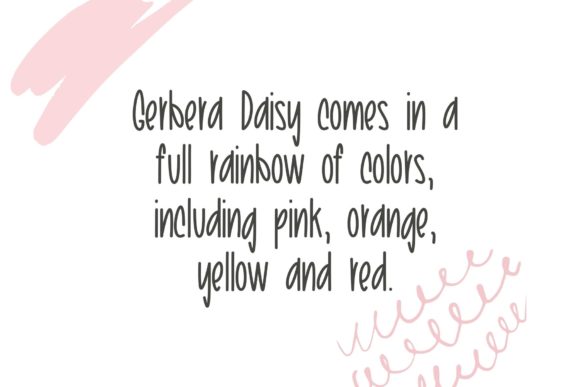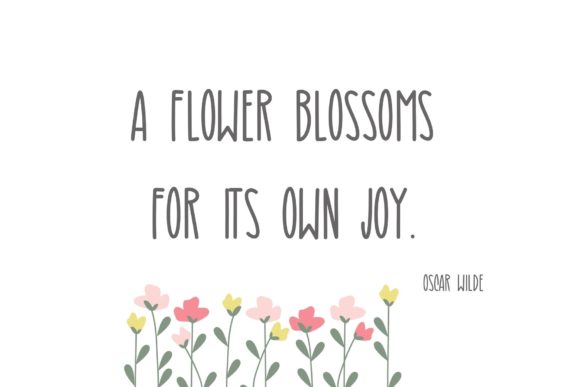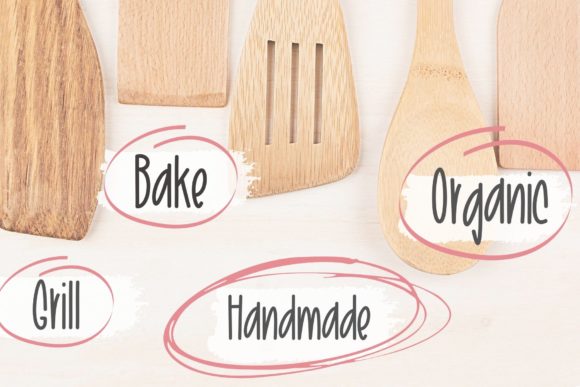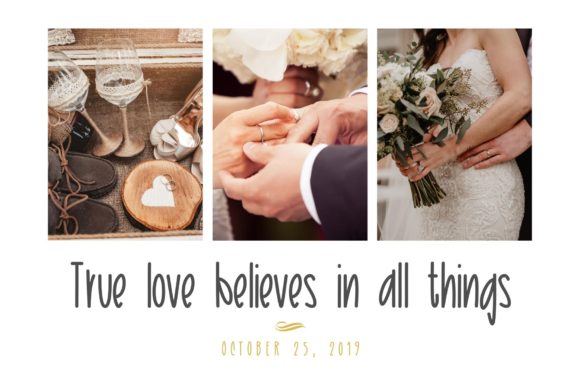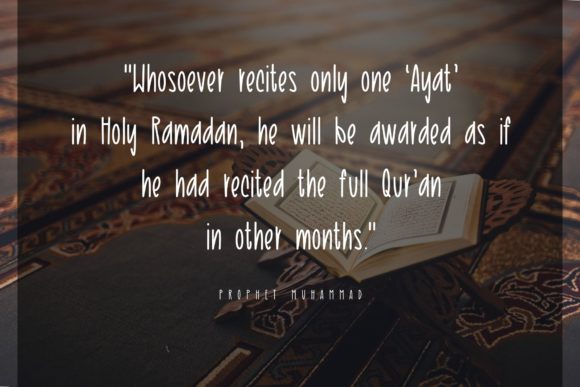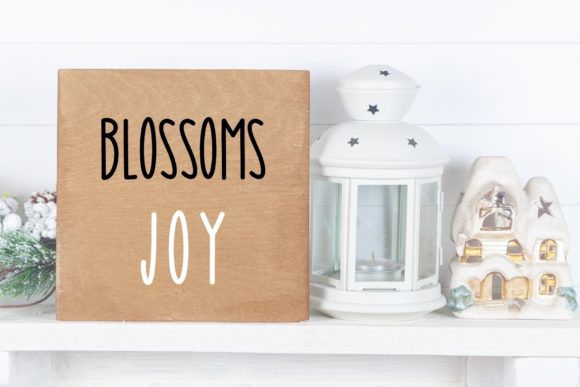
Introduction to Morning Gerbera Daisy Font
Morning Gerbera Daisy is a tall and thin handwritten font.
Fall in love with its incredibly versatile style and use it to create spectacular designs .
Key Features of Morning Gerbera Daisy Font